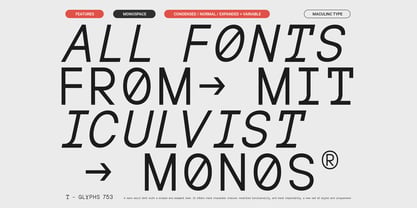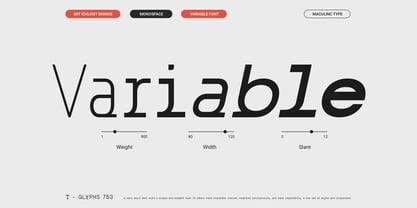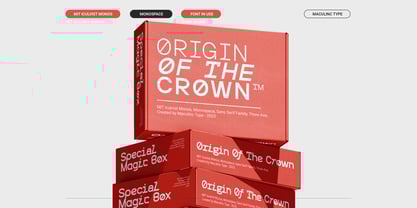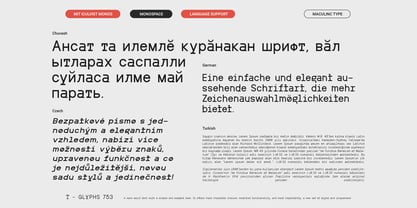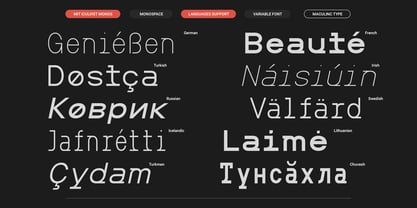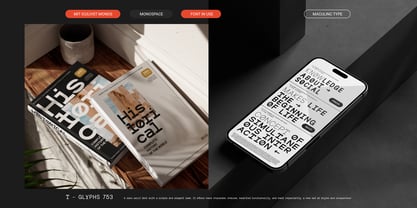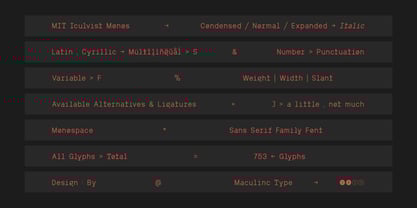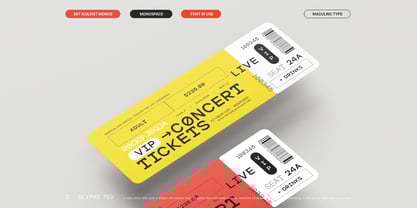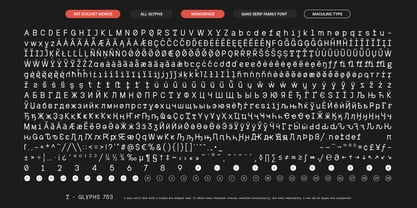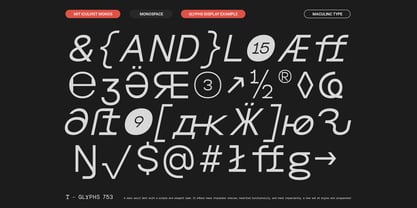
MIT Iculvist Monos
by Maculinc
The MIT Iculvist Monos Font Family was designed by Lukmanul Khikmatullah and published by Maculinc. MIT Iculvist Monos contains 43 styles and family package options. More about this family
About MIT Iculvist (Sans Serif Family Font)
MIT Iculvist is a mainstream sans serif that is similar to most fonts with a neutral but recognizable character. One of the main characteristics of this font is the balance of each glyph. All terminals are positioned on one level, and the glyphs that display strokes are balanced.
The name MIT Iculvist itself is just an invention that makes it unique in our opinion. When working on this typeface, we aimed to create a practical and functional designer tool with its own style and aesthetics.
Thanks to its large character set, various font styles, and extensive language support, MIT Iculvist offers solutions to handle a variety of different tasks. This typeface includes variable fonts with three axes of variation: width, bold, and italic. This gives designers more opportunities to unleash their creativity.
MIT Iculvist Consists of "Latin, Cyrillic, Italic in each glyph and Numbers and Punctuation" various languages ​​that can be applied with this font, making it very easy for you to access it.
This font is easily adaptable to any contemporary project. Perfect for web and app design and looks great in branding, packaging design and print. This font is highly readable and works well in running text and large point sizes.
MIT Iculvist Monos consists of 14 font styles: 7 roman and 7 italic, with 3 Axes: Condensed, Normal, Expanded and Italic in each option.
43 font styles, including 1 variable font; 753 glyphs in each font from Condensed, Normal and Expanded with its Italic.
43 TrueType features, including ligatures and style alternates;
Support for 100+ languages.